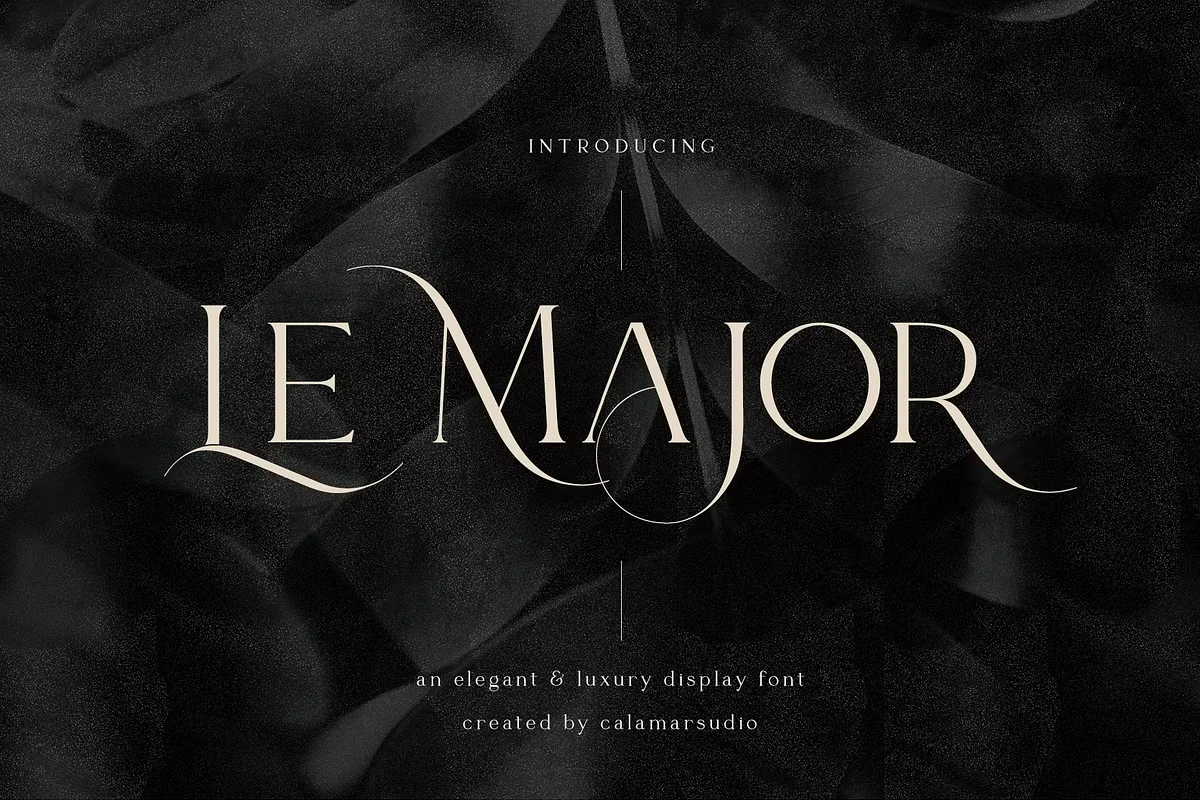
Le Major Font. This modern, high-contrast serif typeface features distinct and recognizable characteristics, crafted by the talented designers at Calamar Studio. Ideal for logotypes, branding, wedding monograms, invitations, blog headlines, and more.
Le Major Serif Font